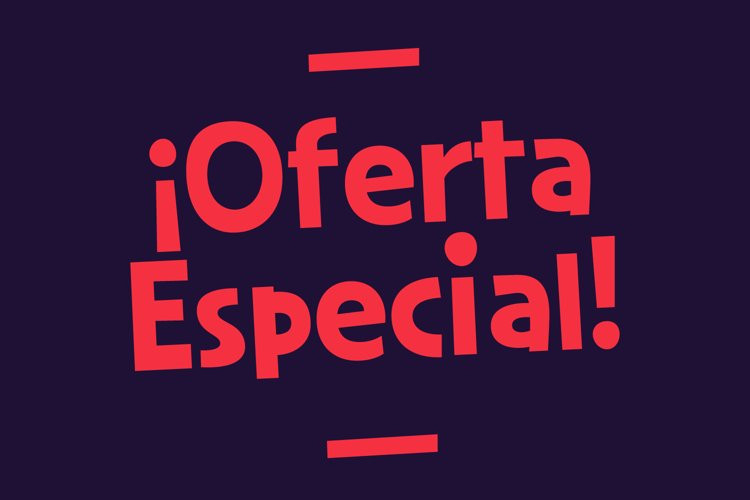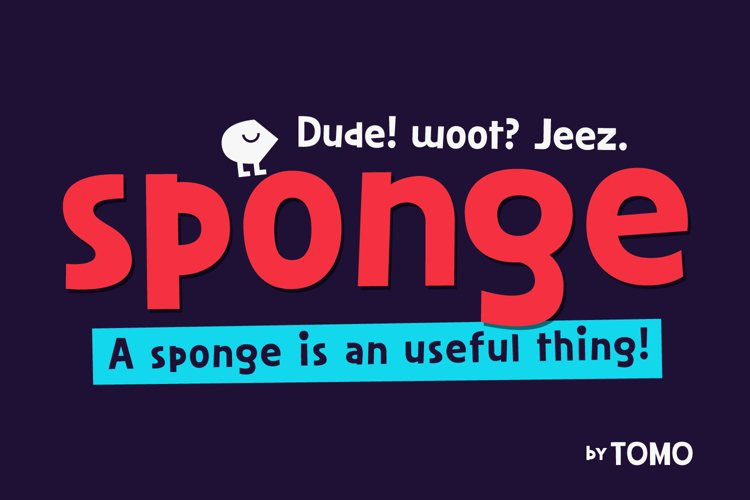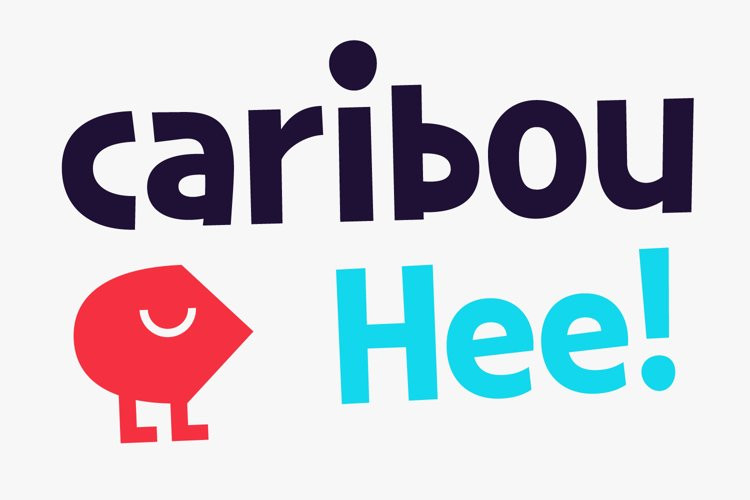
Sponge Font
A Sponge is an useful thing, as much as this cute typeface. TOMO Sponge is great for communicating messages to the young peeps in a friendly, yet legible, way.